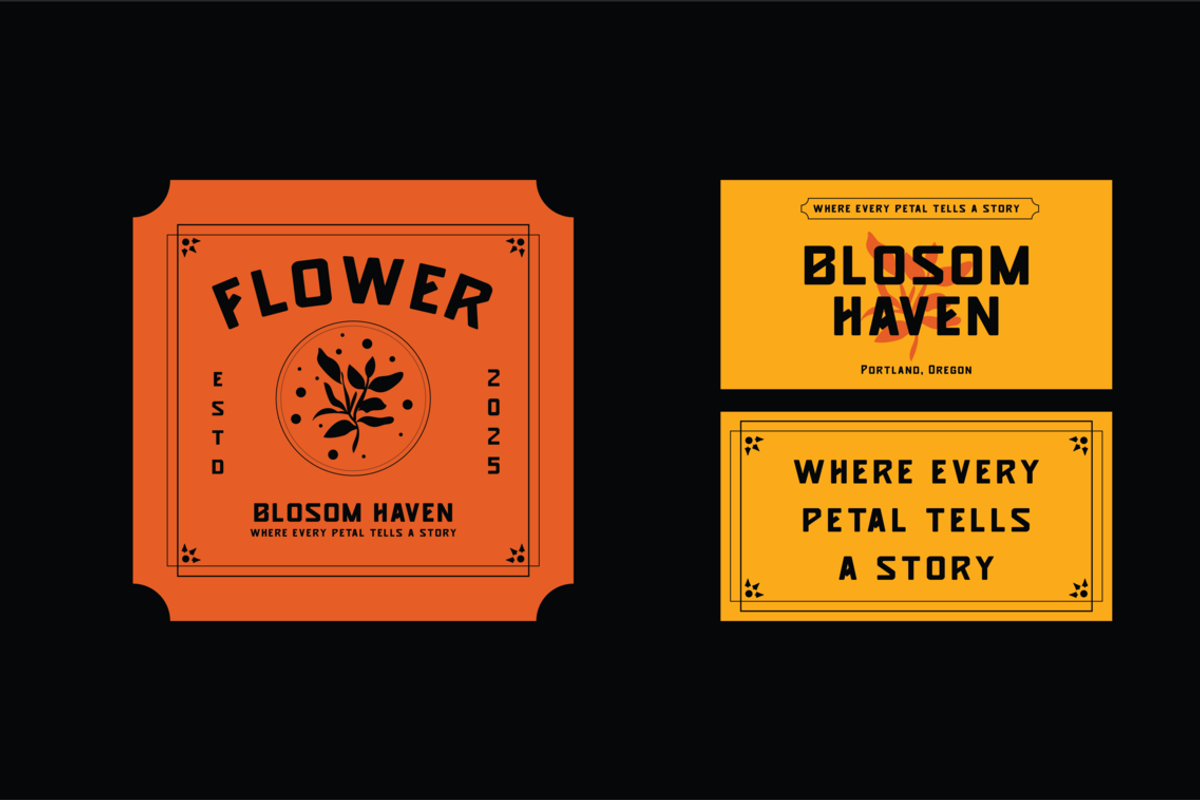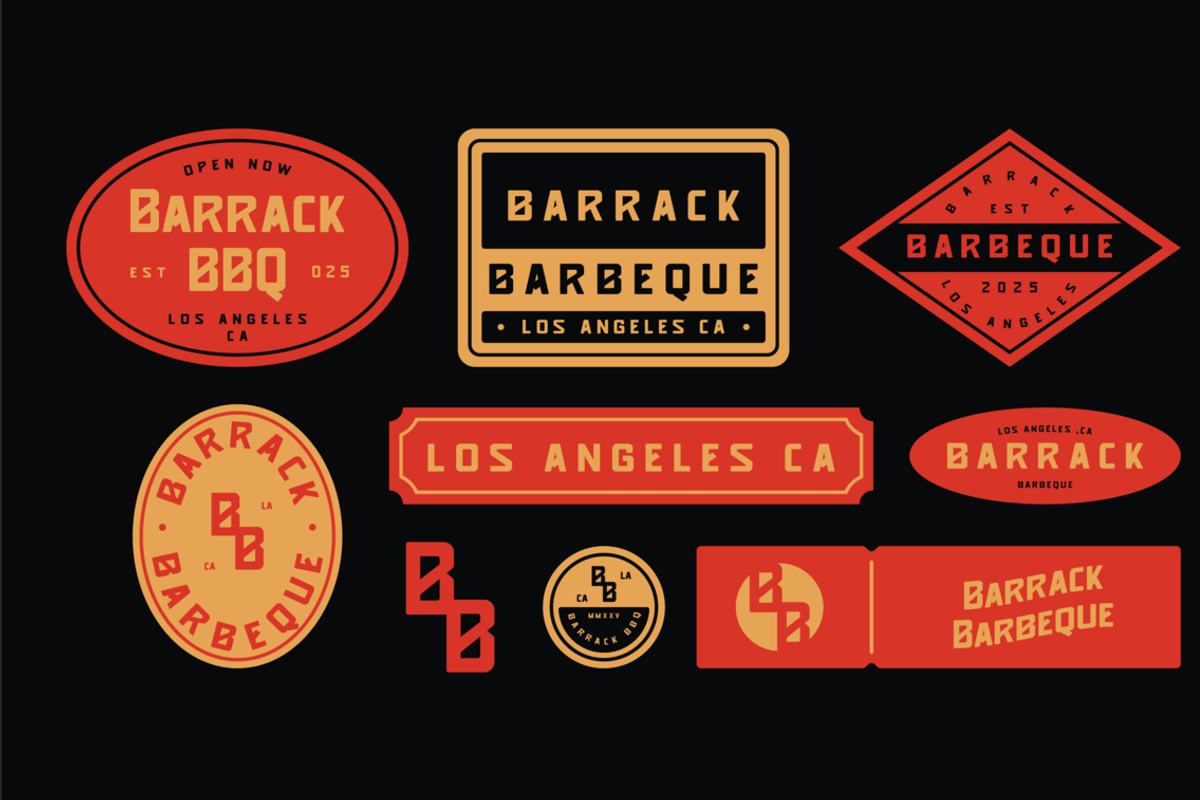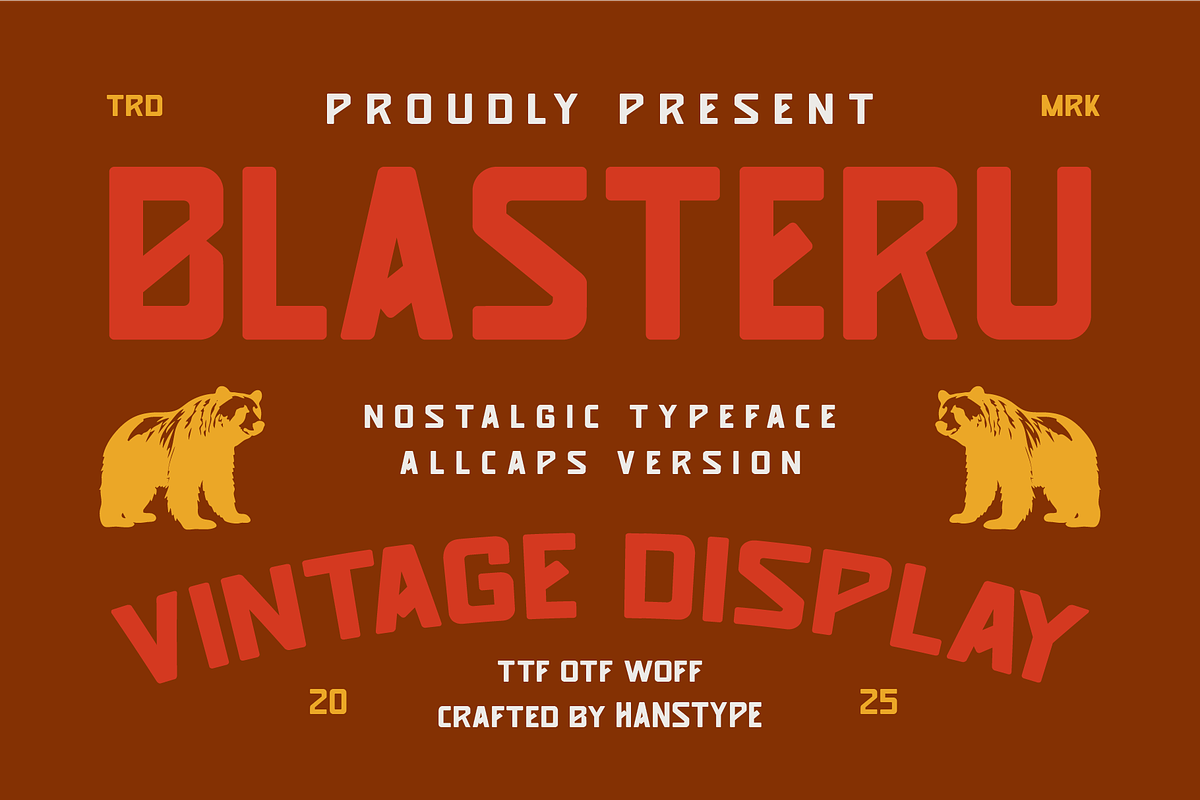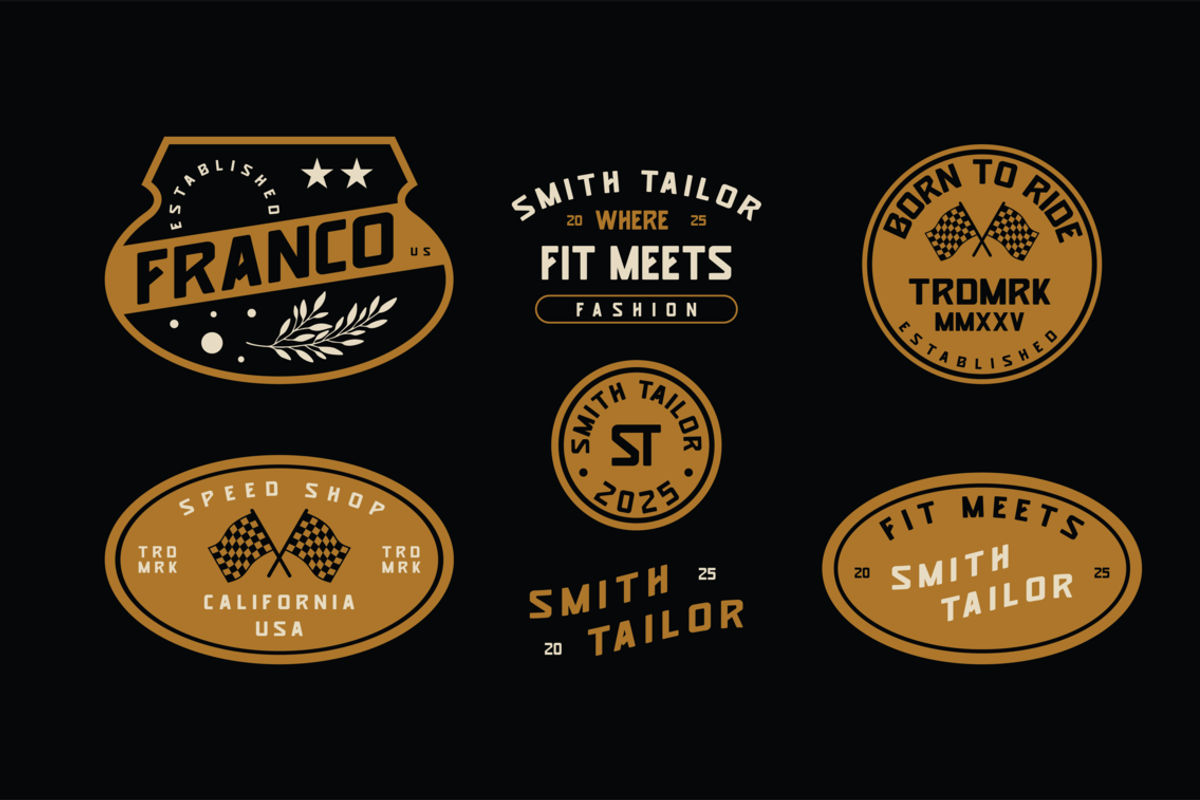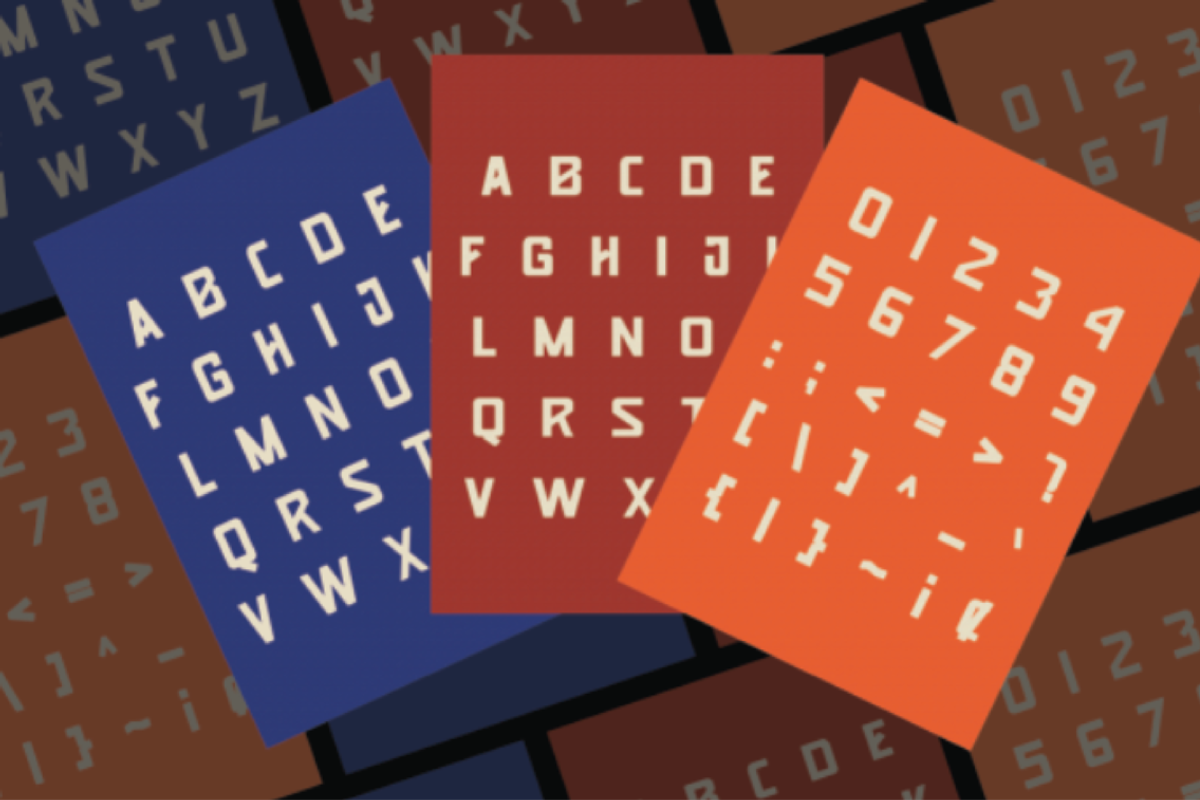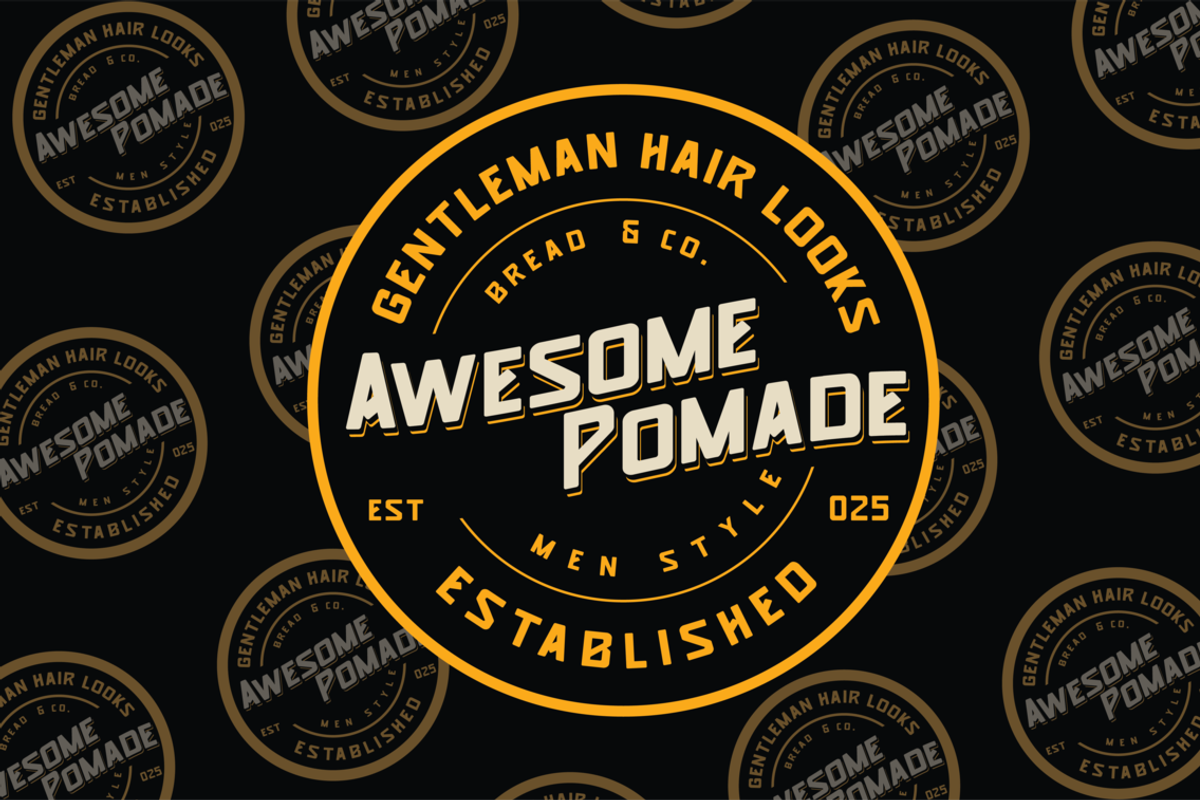
Blasteru - Retro Font
Blasteru Font is a bold and dynamic sans-serif typeface that brings the spirit of retro display fonts into the modern era. With clean lines, sharp angles, and a powerful presence, Blasteru strikes the perfect balance between vintage charm and contemporary flair. Its distinctive letterforms make it ideal for headlines, posters, logos, and any design where attention is key.